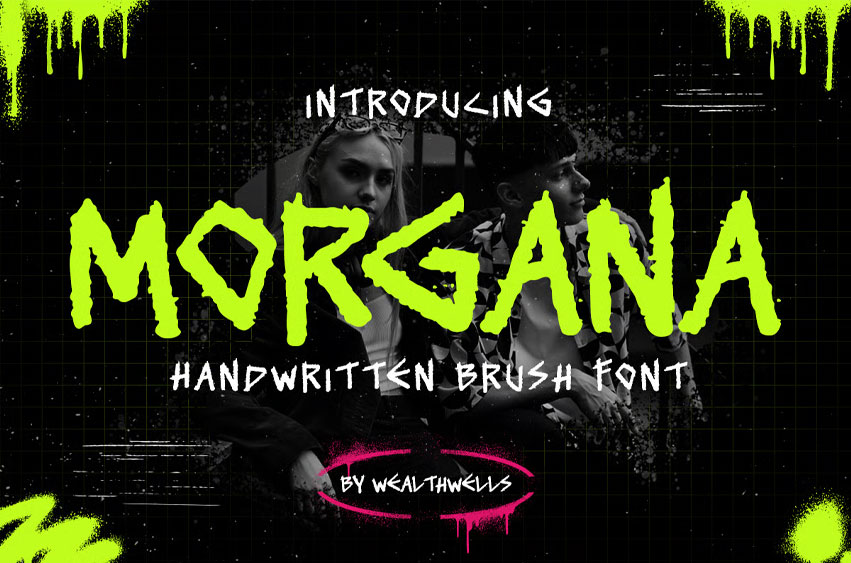
Morgana Handwritten Font
Morgana Handwritten Font is a wild and energetic handwritten brush font that captures the raw attitude of punk culture. Featuring rough textures and expressive strokes, this typeface is perfect for rebellious, high-impact designs such as gig posters, streetwear branding, underground zines, and album covers.
Morgana’s hand-crafted look gives your typography a chaotic, authentic vibe—ideal for projects that demand boldness, character, and a touch of anarchy.